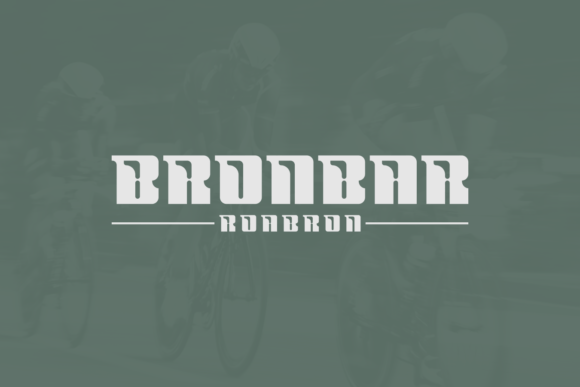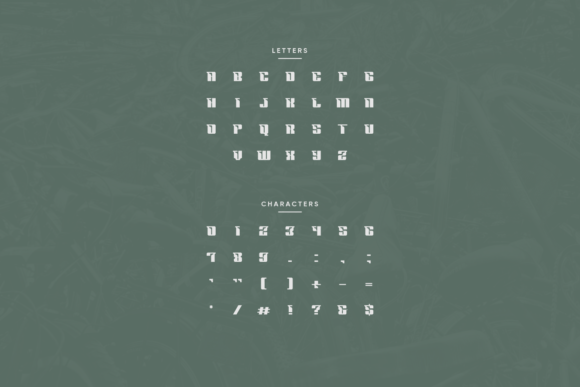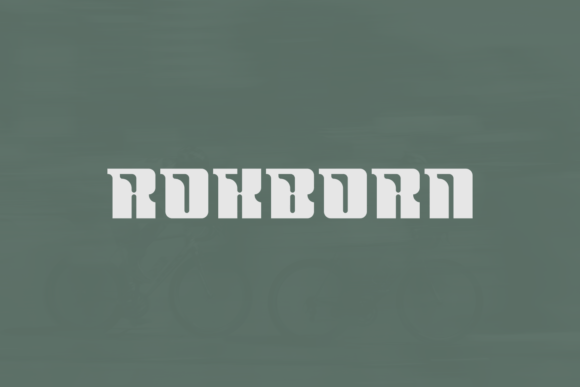
Baruno Font – Free Download
Introduction to Baruno Font
Baruno is a sports font, designed to draw attention and highlight any project that calls for a bold, powerful look, built with all caps to created a vibrant touch to your designs.
| 👤 Author | Letterna |
Perfect for sports designs, logos, headlines, posters, games, book covers, titles and many other projects Add this font to your creative ideas and watch how it makes it stand out.
Key Features of Baruno Font
Why Choose Baruno Font?